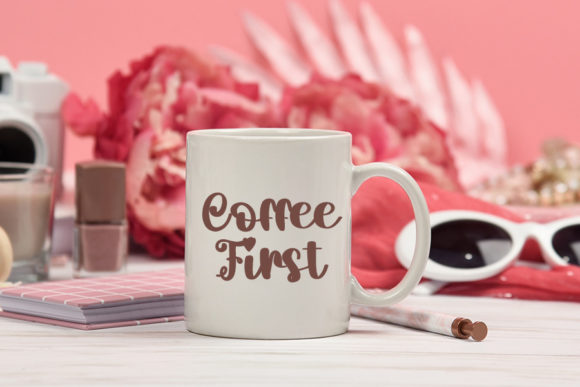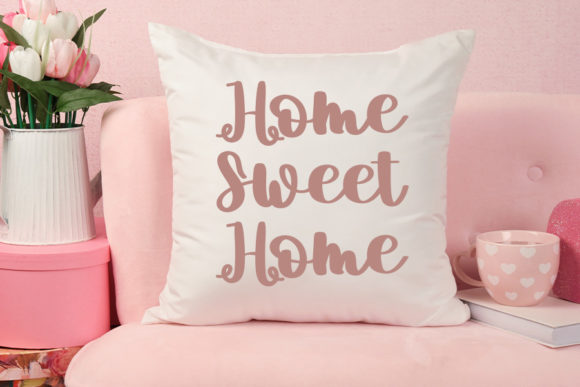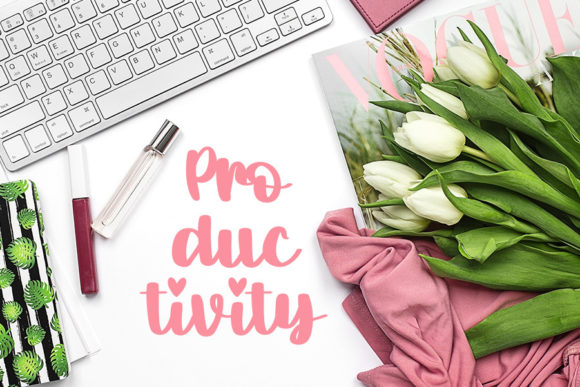
Introduction to Sewing Friends Font
Sewing Friends is a fun, chic and playful handwritten font.
Add it to each of your party invitation, gathering or pretty much any design that requires a touch of youth and joy .
Sewing Friends Font offers exceptional quality and versatility, making it a valuable addition to your design toolkit. Whether you’re creating for personal projects or commercial use, Sewing Friends Font delivers professional results.